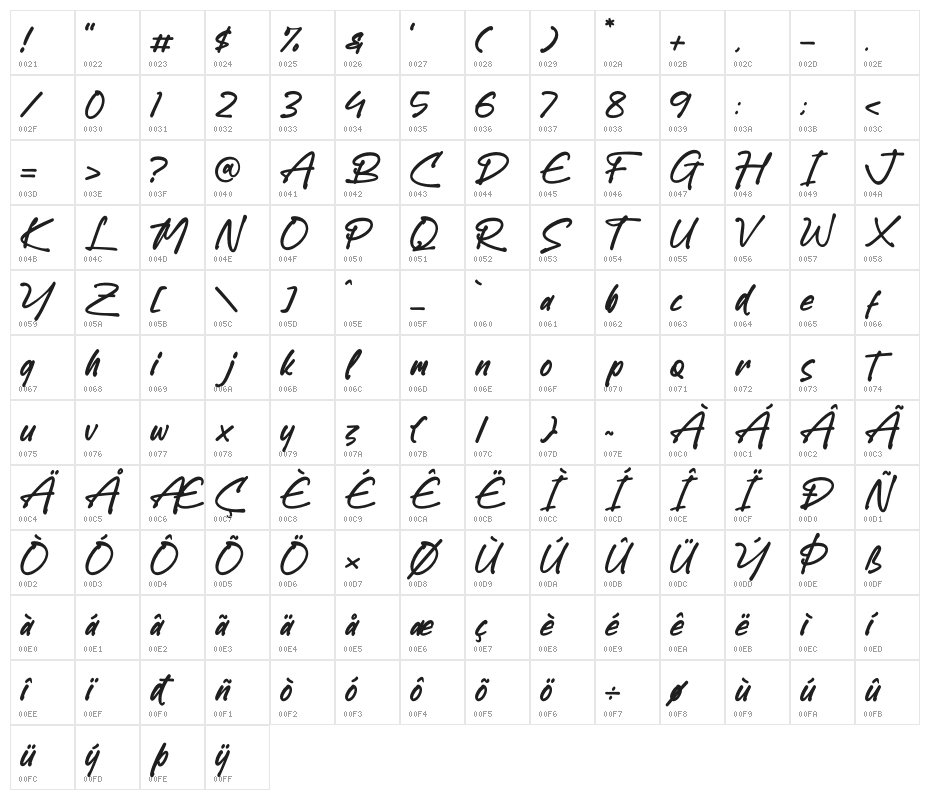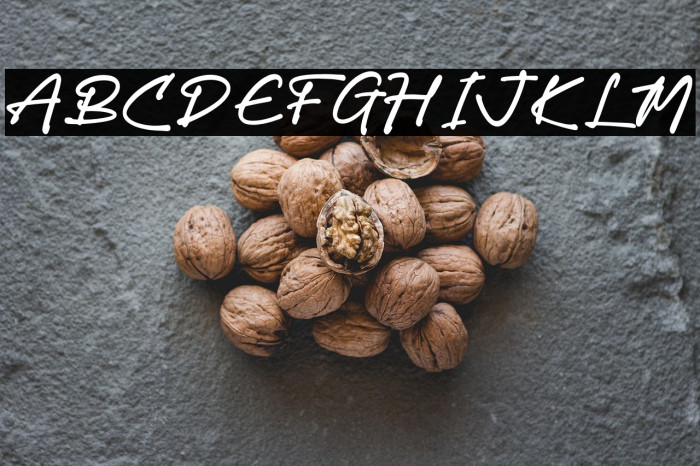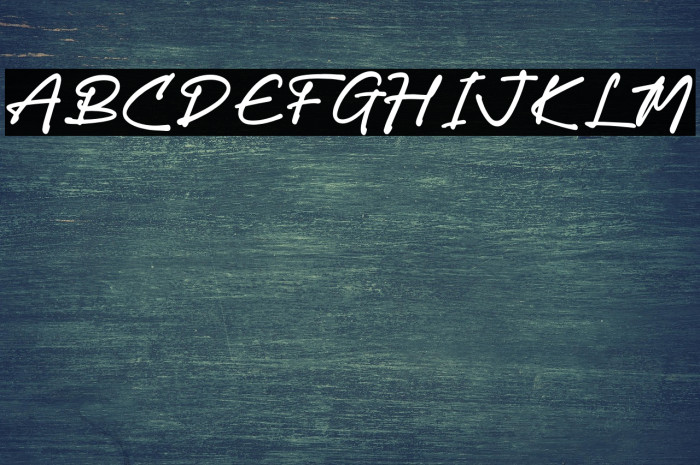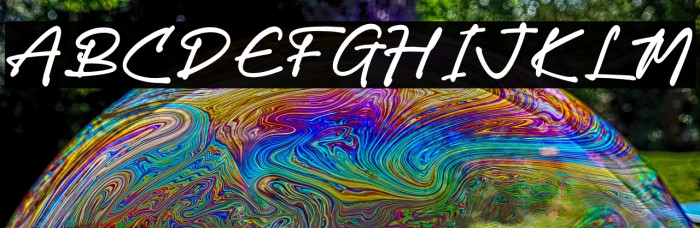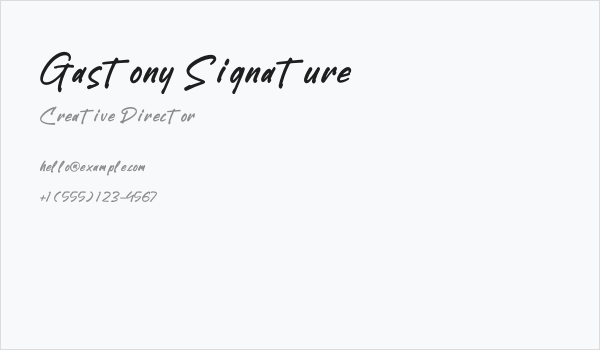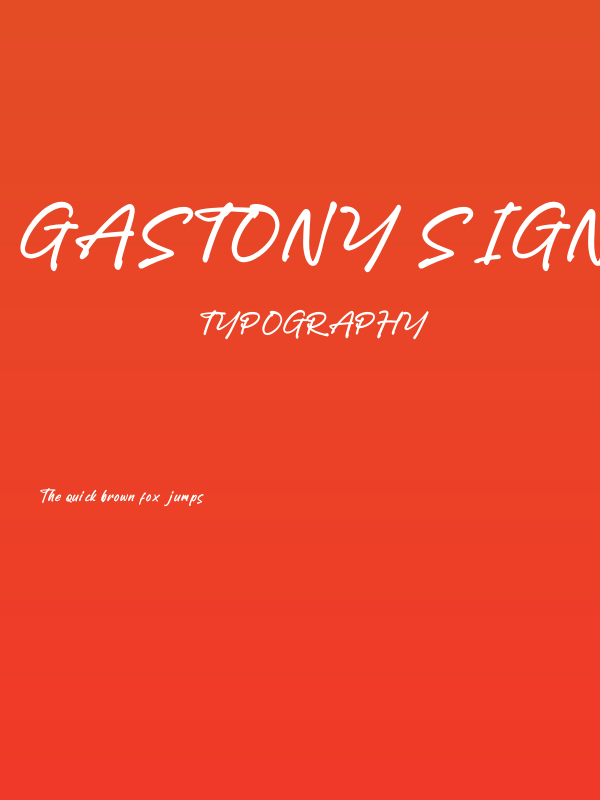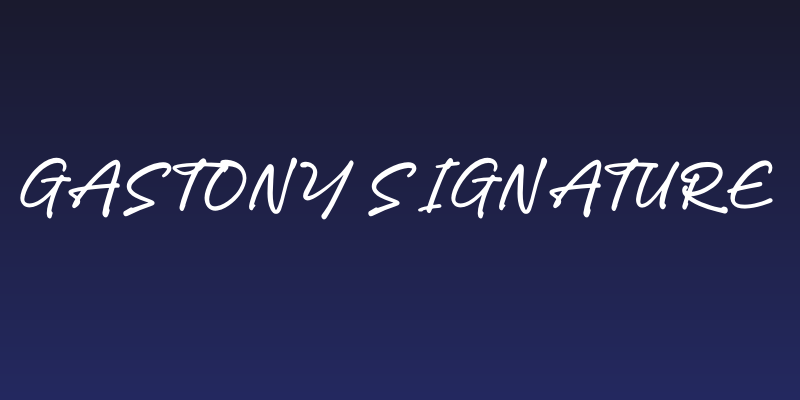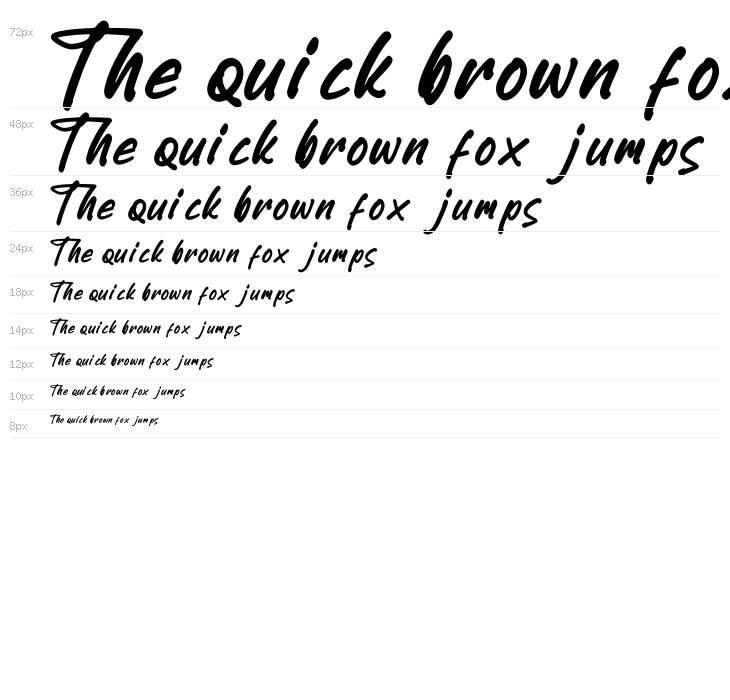
Gastony Signature Font
Gastony Signature Description
This font exudes a dynamic and fluid handwritten style, characterized by its smooth, cursive strokes that mimic a natural handwriting flow. The uppercase letters maintain a consistent height, while the lowercase letters exhibit a playful bounce, adding a touch of elegance and informality. The numerals are clear and distinct, maintaining the same fluidity as the letters. Special characters are seamlessly integrated, ensuring versatility in various design contexts. The overall appearance is both sophisticated and approachable, making it ideal for projects that require a personal touch.
| Proposed Projects | Ideal for wedding invitations, personal branding, greeting cards, and social media graphics. |